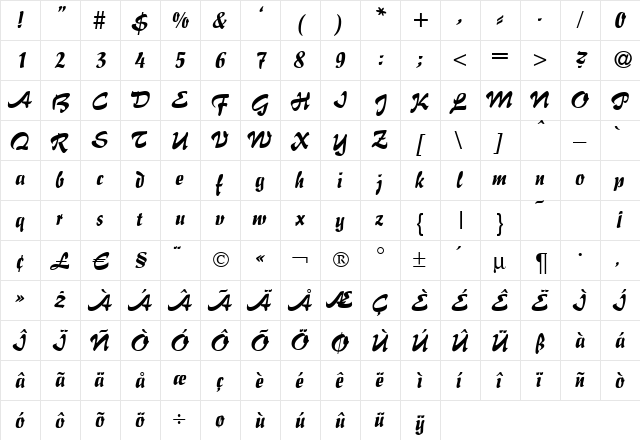
I770-Script Regular
Design Context for I770-Script Typeface
I770-Script brings a calligraphic fluidity to the page — its connecting strokes and expressive curves give it an unmistakably human quality.
Font Pairing: Combine I770-Script with a simple geometric sans for maximum contrast — the tension between flowing curves and clean structure is a classic typographic pairing.
Pro Tip: Pair I770-Script with a clean sans-serif for supporting text. The contrast between fluid script and geometric structure creates an elegant typographic hierarchy.